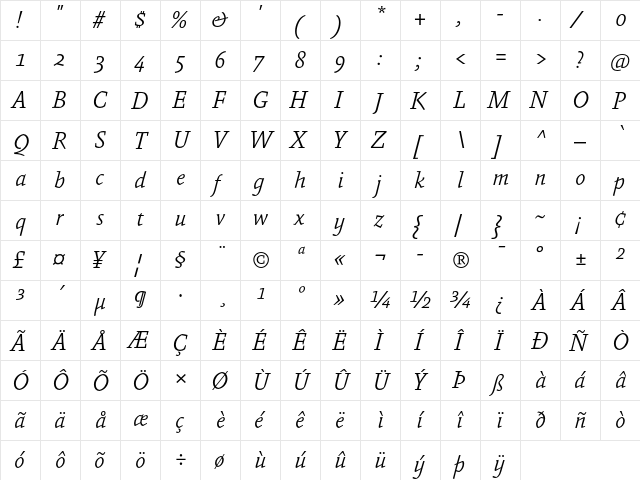
Absara Light Italic Font Preview
Design Context for Absara Light Typeface
Absara Light takes a measured approach to typography — its balanced proportions and neutral character make it a reliable workhorse for both digital and print work. The slanted form adds forward momentum and visual energy. Its slender proportions lend an understated elegance to any composition.
Pro Tip: Try Absara Light for annotation and caption copy alongside an upright companion — the contrast in angle creates a dynamic but ordered typographic system.